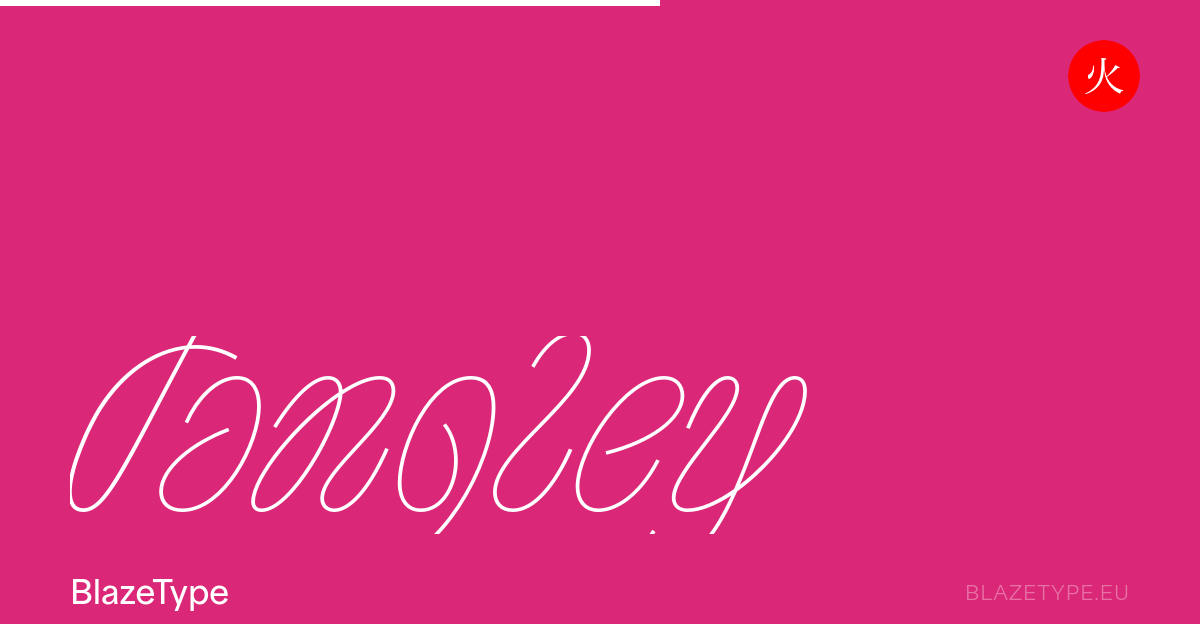
Tangley specimen
Tangley
Cy Twombly's Untitled loopiness, minimal spacing and high lowercase letters, Tangley is an adaptable tool for your headlines in posters, movies, books or video titles.